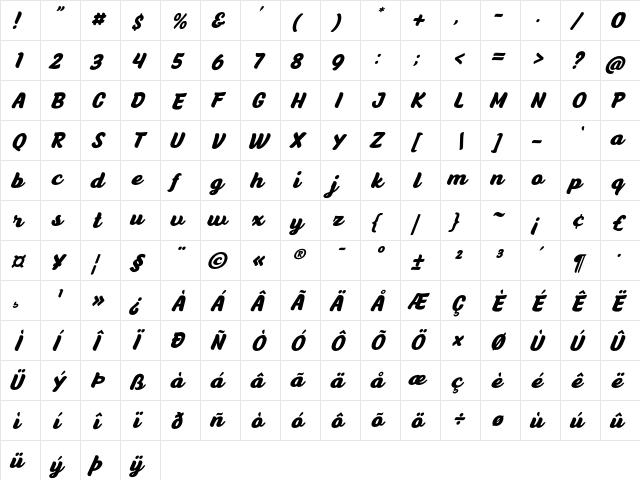
Anyelir Script Bold Italic
| Designer | Fredy Sujono |
Design Context for Anyelir Script Typeface
Anyelir Script flows with the natural rhythm of handwritten lettering, making it ideal for designs that call for warmth and personal expression. Its bold stroke weight gives it real presence on the page.
Font Pairing: Combine Anyelir Script with a simple geometric sans for maximum contrast — the tension between flowing curves and clean structure is a classic typographic pairing.
Pro Tip: Use Anyelir Script for short runs of text — names, titles, or taglines. Extended body copy in script faces tires the eye quickly.